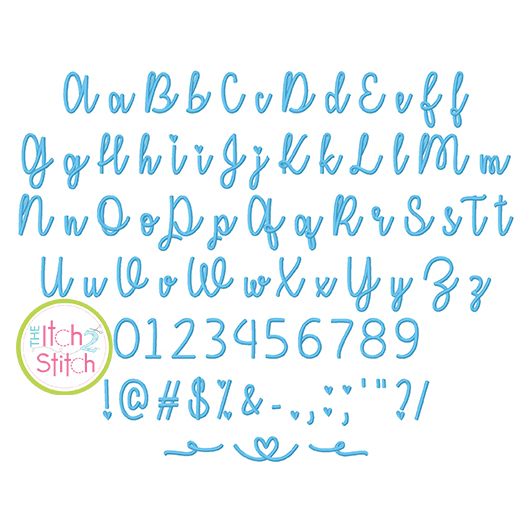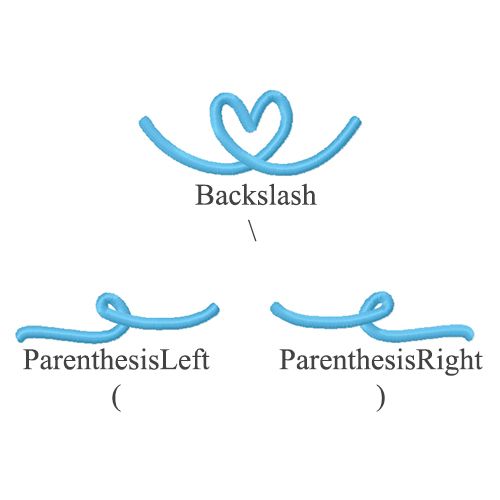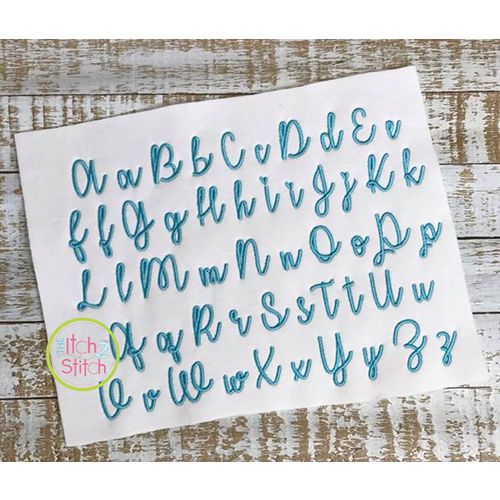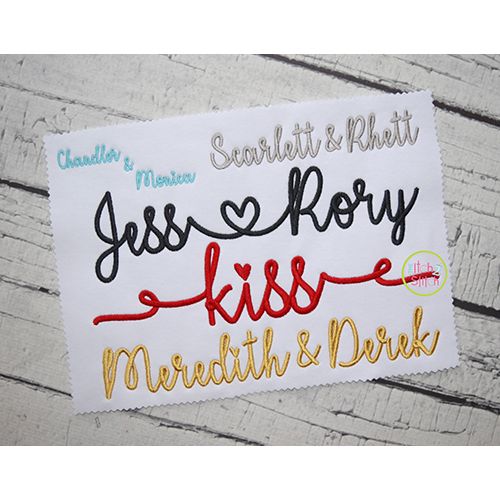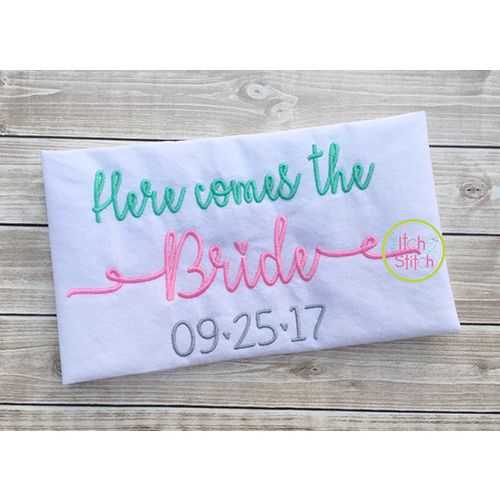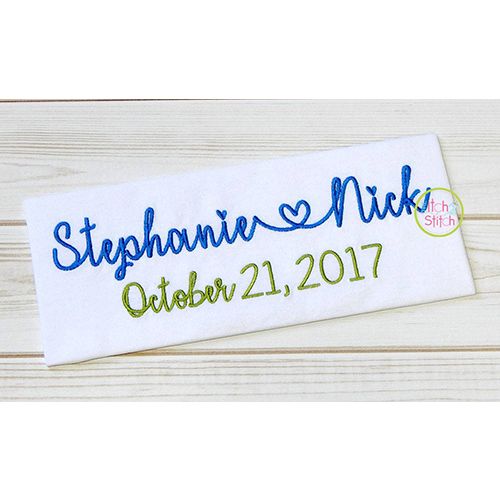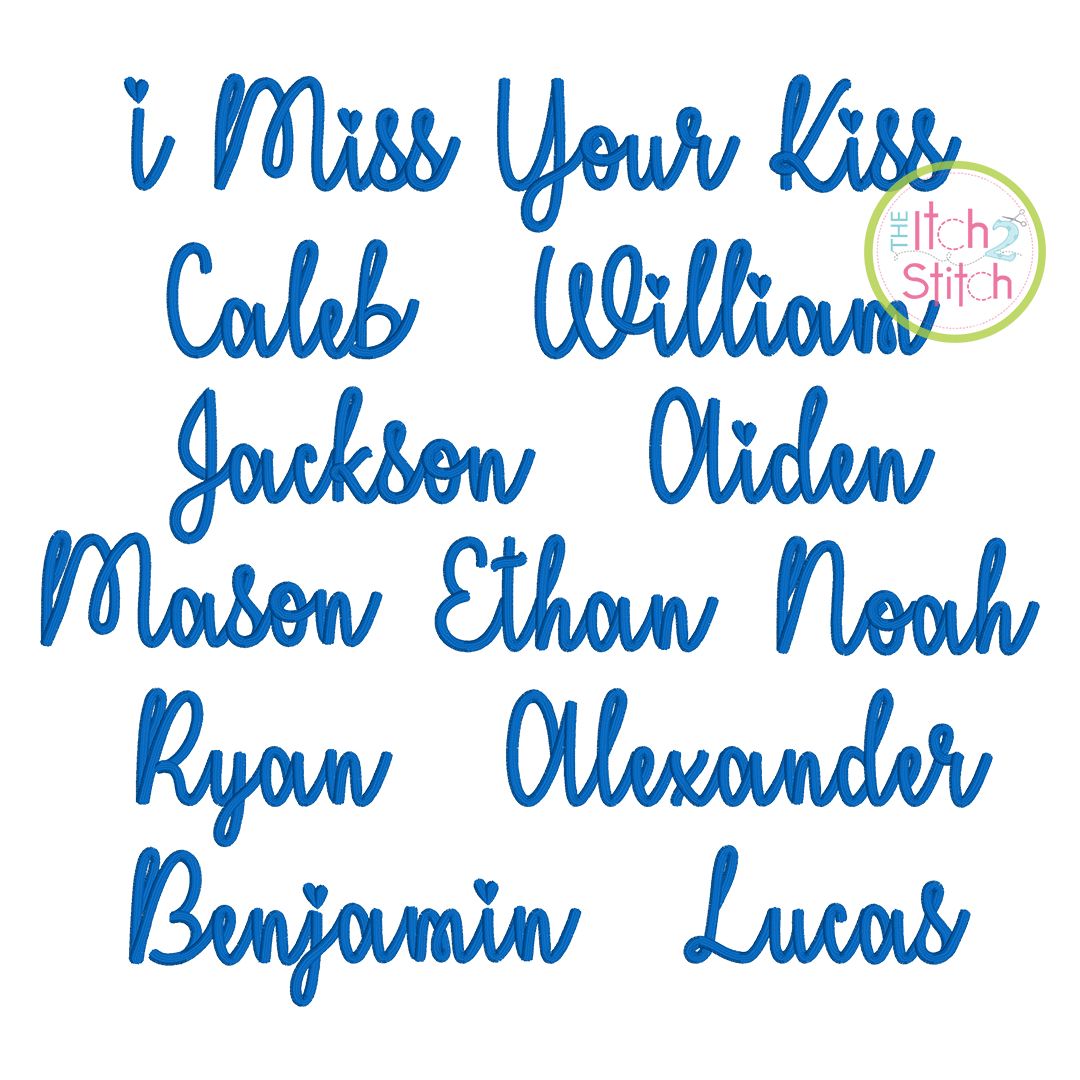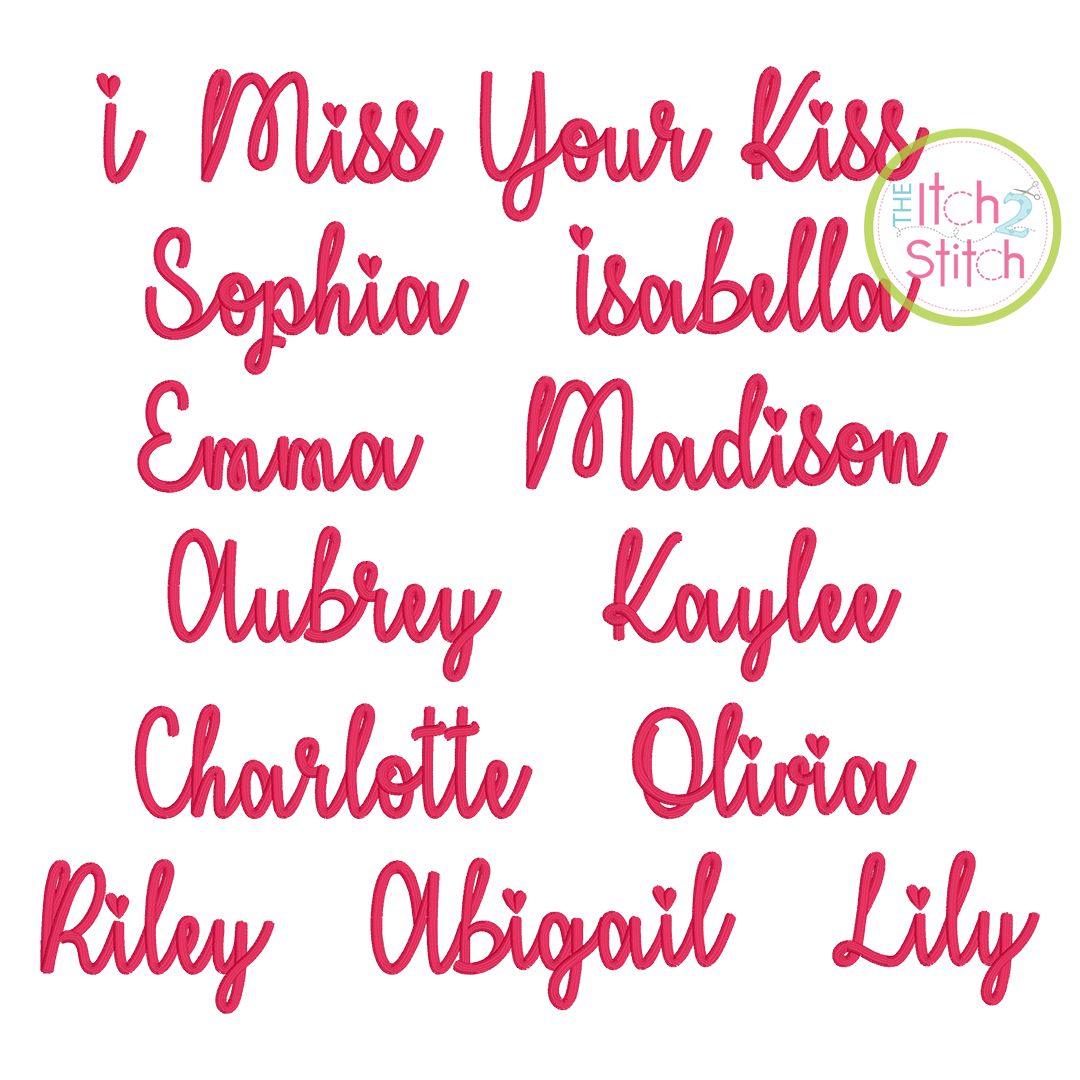
I Miss Your Kiss Satin Stitch Embroidery Font
In this particular font, the "parentheses" are not actually parentheses but the left and right flourishes to begin and end a word. The "backslash" is actually the heart flourish to connect words. We named the files (and mapped them to the keyboard in Embrilliance) to match the original TTF that we purchased a commercial license to digitize.